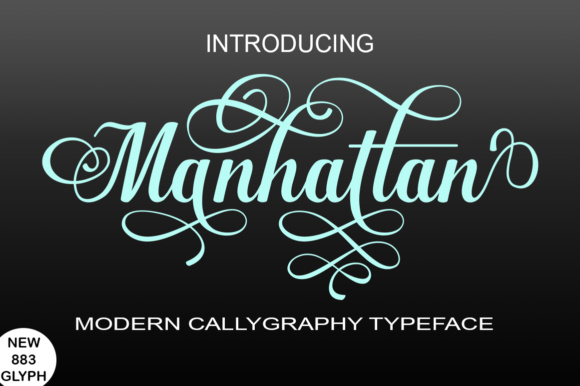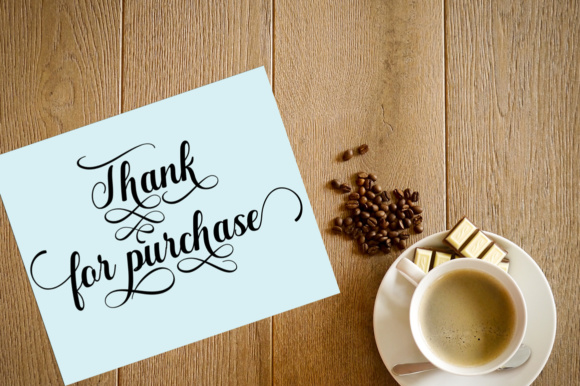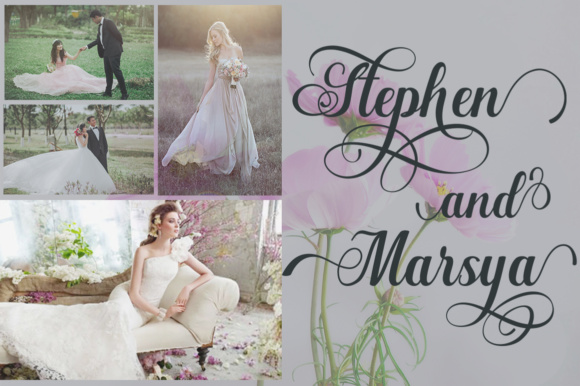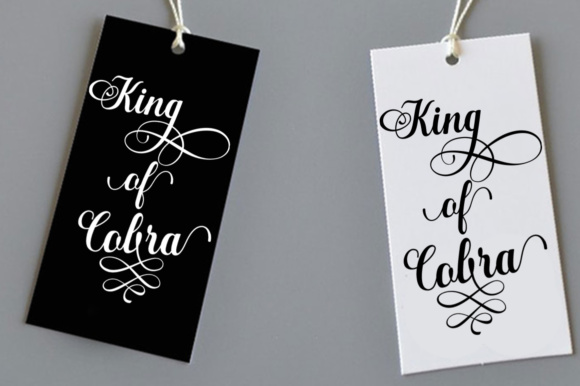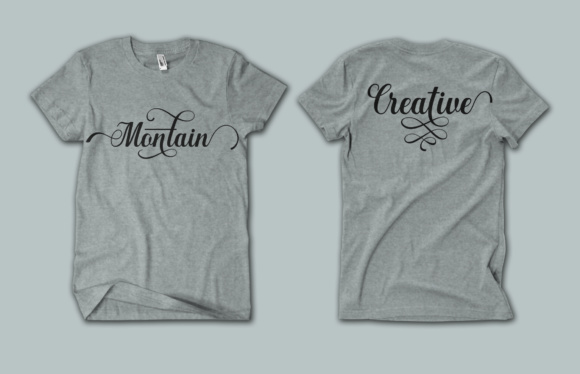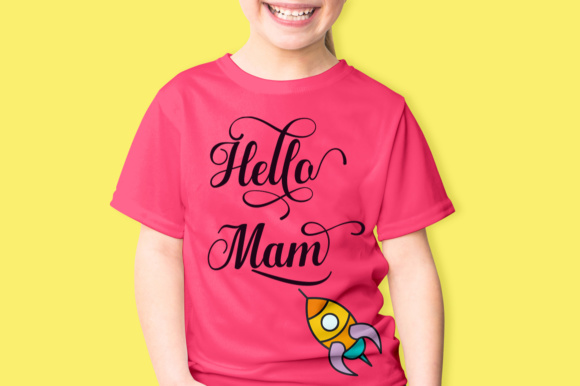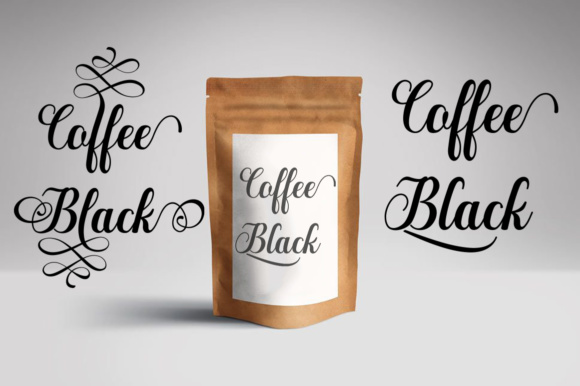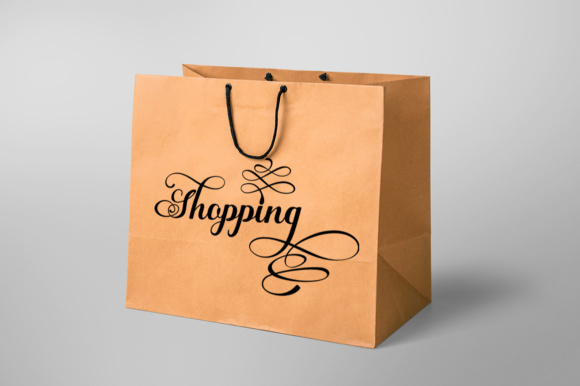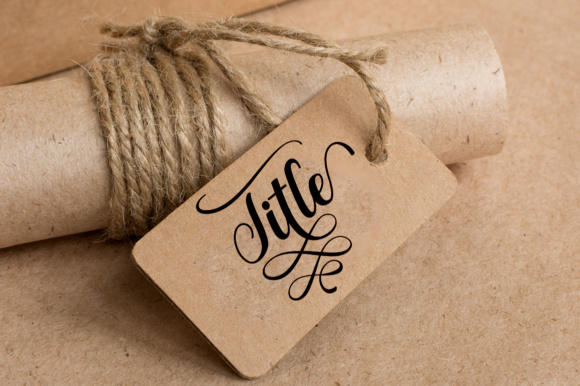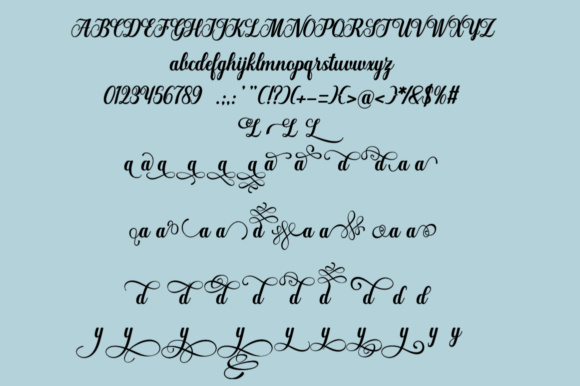
Manhattan Font
About Manhattan Font
Manhattan is a beautiful, ornate script font with tons of style and grace! This a great option that adds a ton of regal charm to your projects.